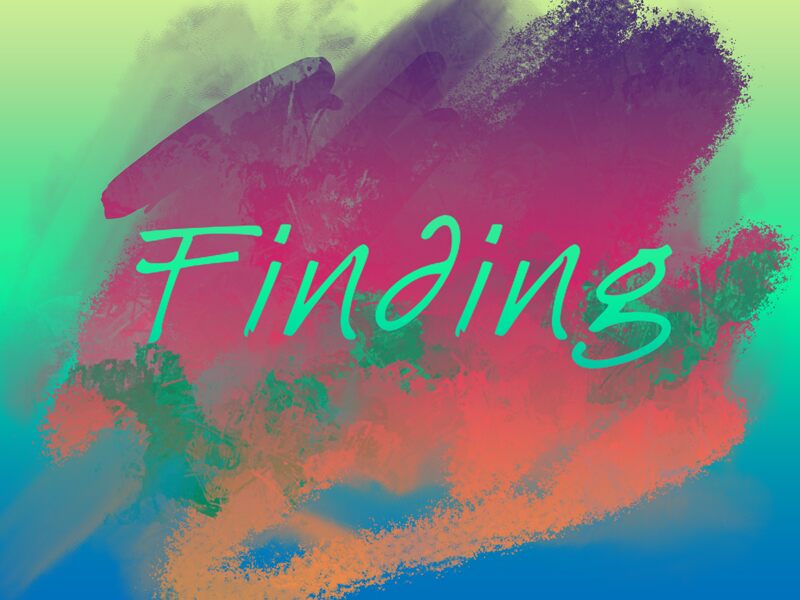
Finding
Finding is a captivating handwritten font designed by wep that exudes a charming, organic feel. The flowing, expressive strokes and natural irregularities capture the essence of handcrafted calligraphy, infusing a sense of warmth and personality into any design. This font's distinctive style evokes a sense of authenticity and artisanal quality, making it a compelling choice for projects that require a personal, heartfelt touch.
The versatility of Finding allows it to seamlessly integrate into a wide range of design applications, from editorial layouts and branding materials to packaging and wedding invitations. Its fluid, expressive lines lend an air of elegance and refinement, making it an ideal font for conveying a sense of craft, creativity, and exclusivity.